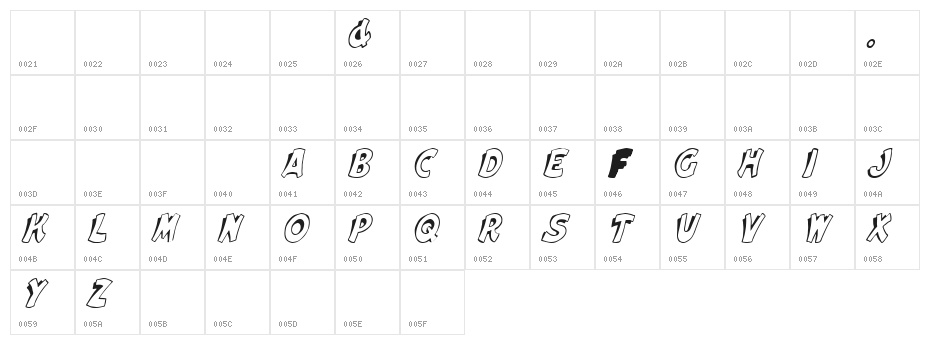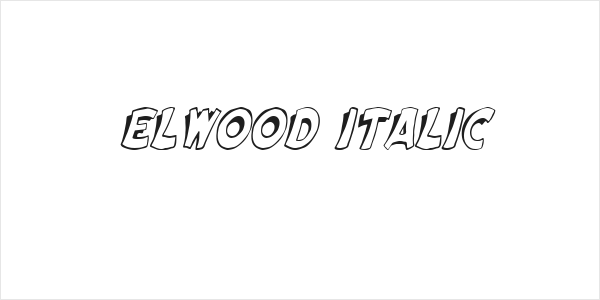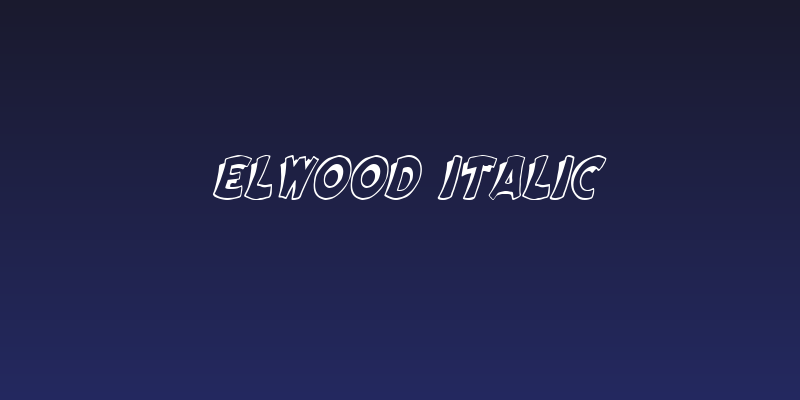
Elwood Italic Font
Elwood Italic Description
This font features a bold, italicized style with a playful and dynamic appearance. The letters have a strong presence with thick strokes and a slight slant, giving them a sense of motion and energy. The uppercase and lowercase letters maintain a consistent style, with rounded edges and a slightly condensed form. The numbers and special characters follow the same design principles, ensuring uniformity across all glyphs. The font's boldness and unique style make it suitable for attention-grabbing designs.
Overall StylePlayful, Dynamic
Proposed ProjectsIdeal for comic books, posters, logos, and any design requiring a bold, energetic typeface.